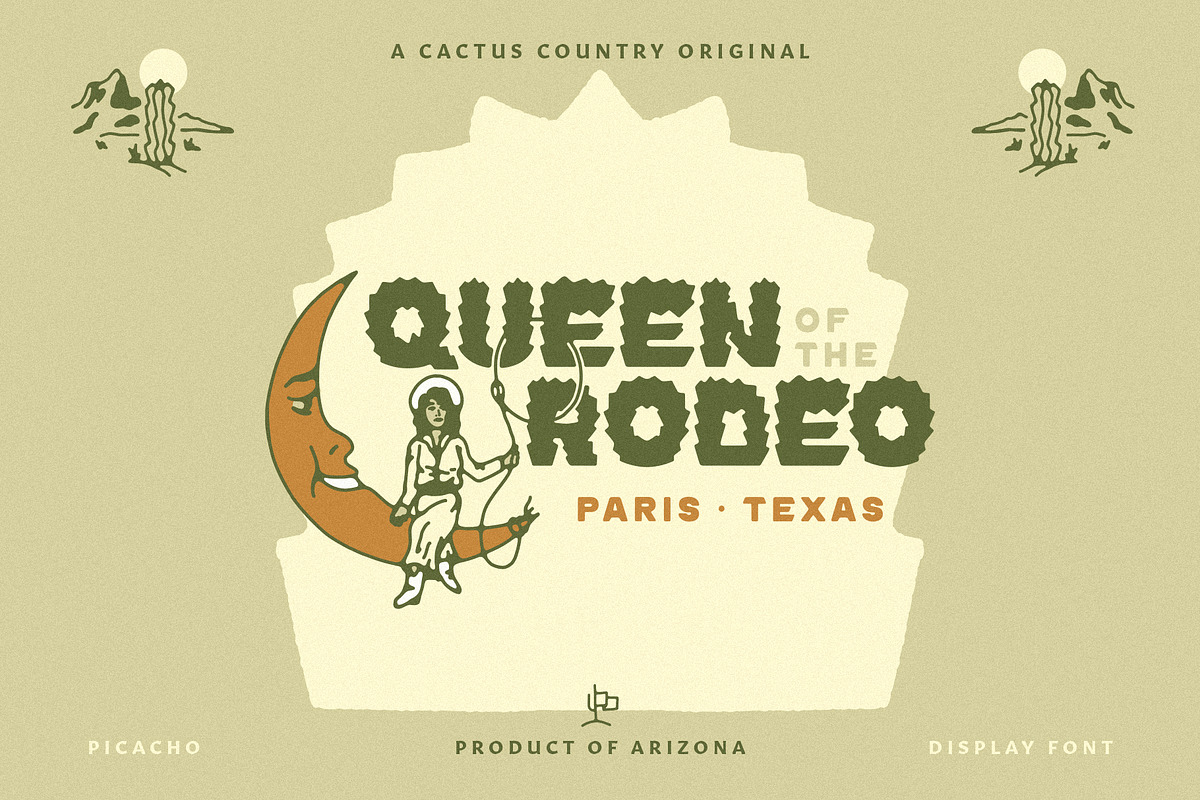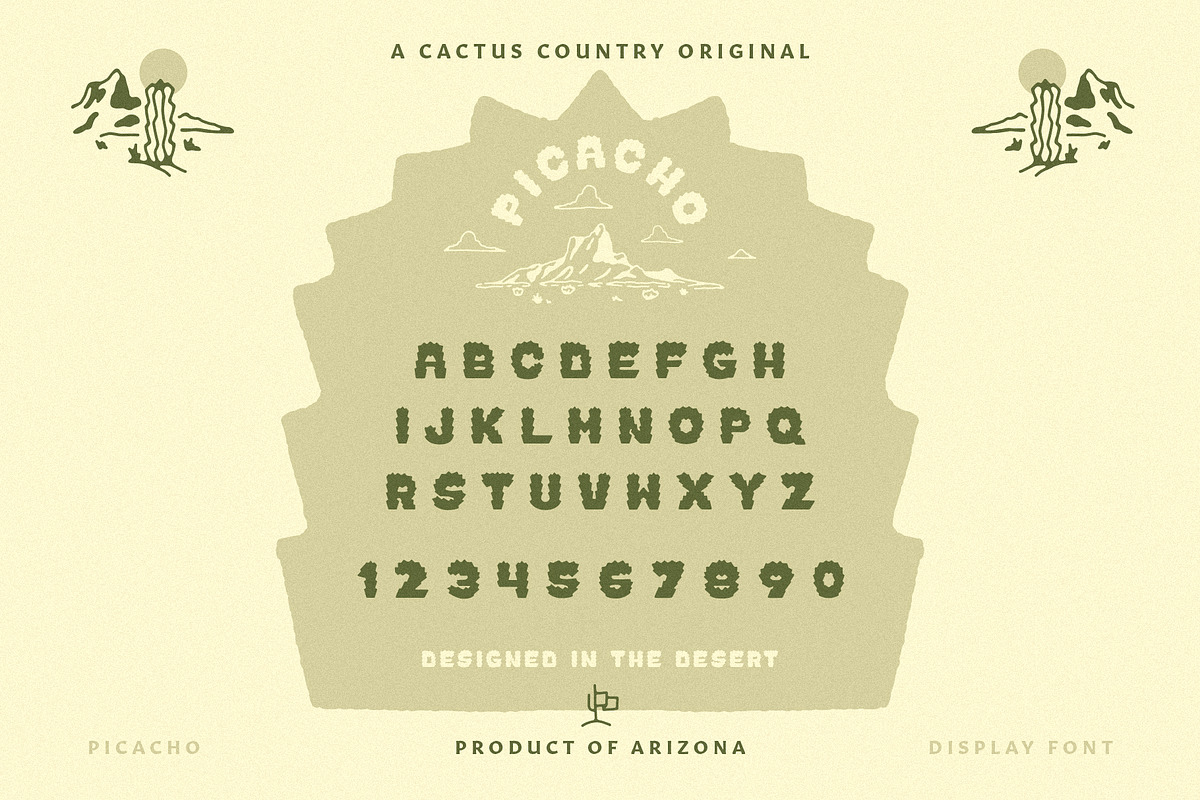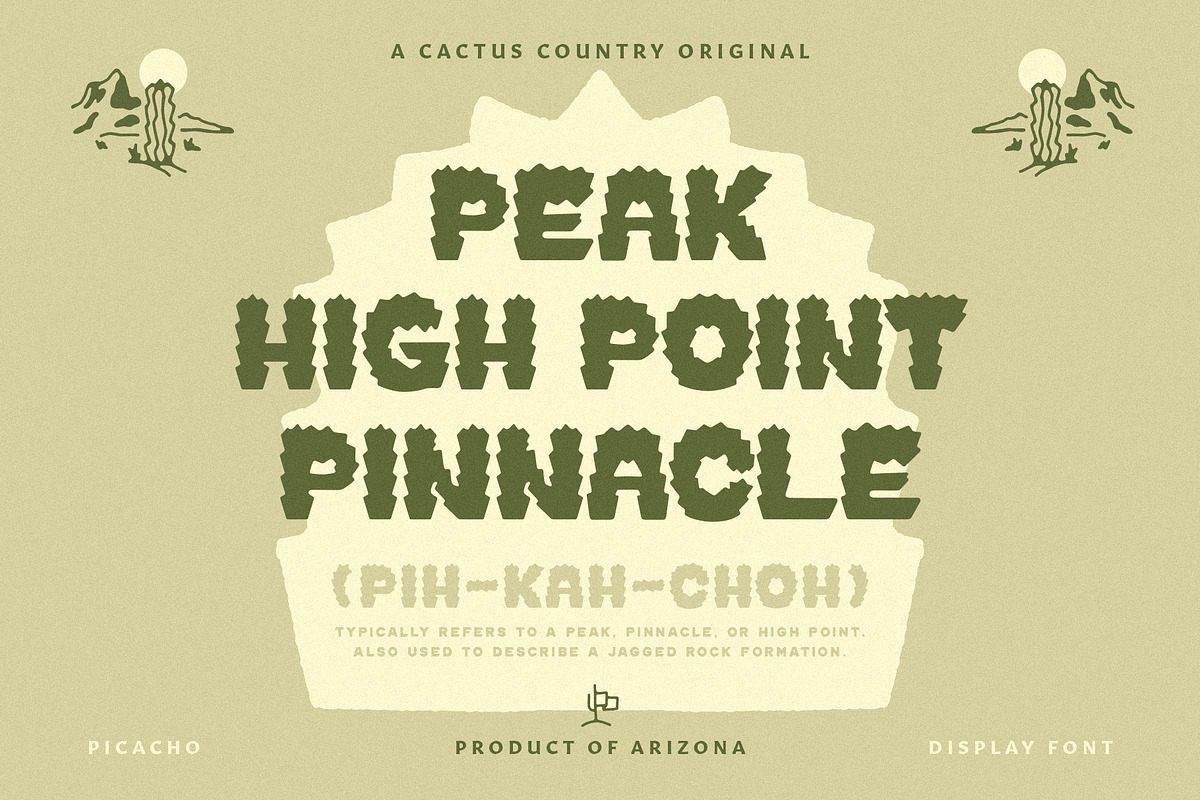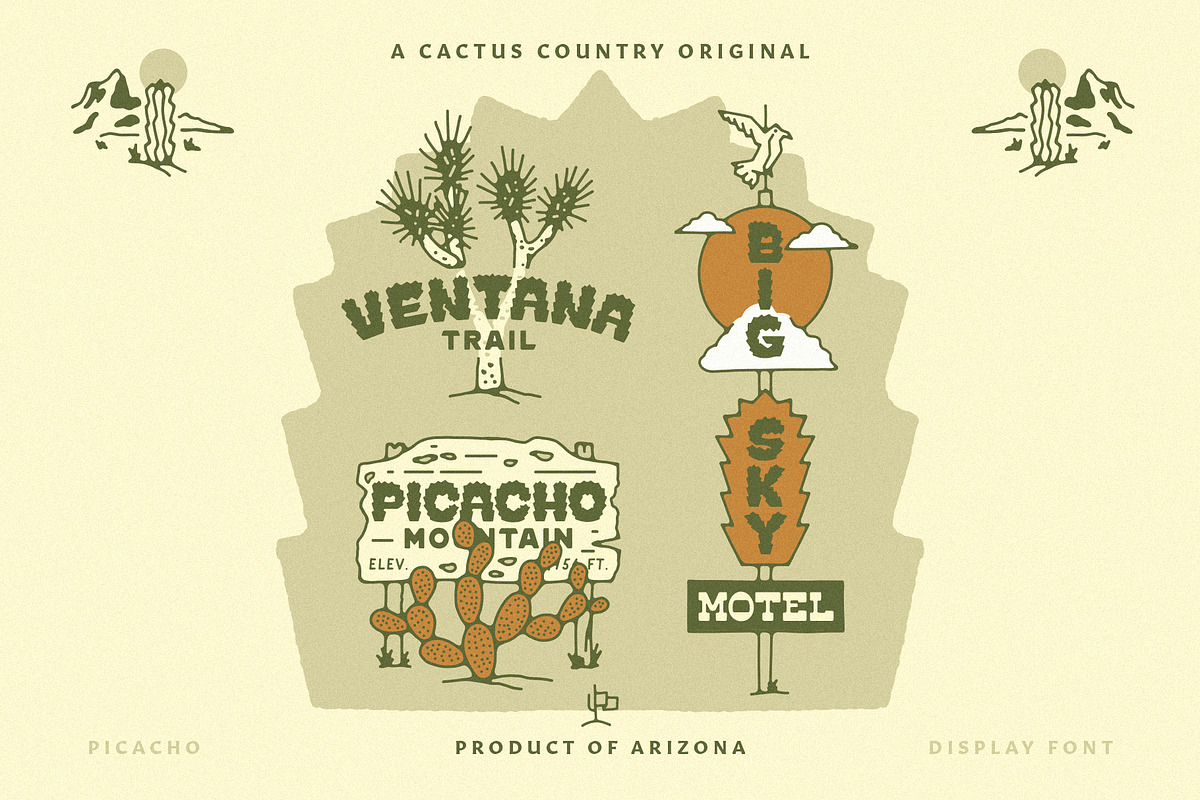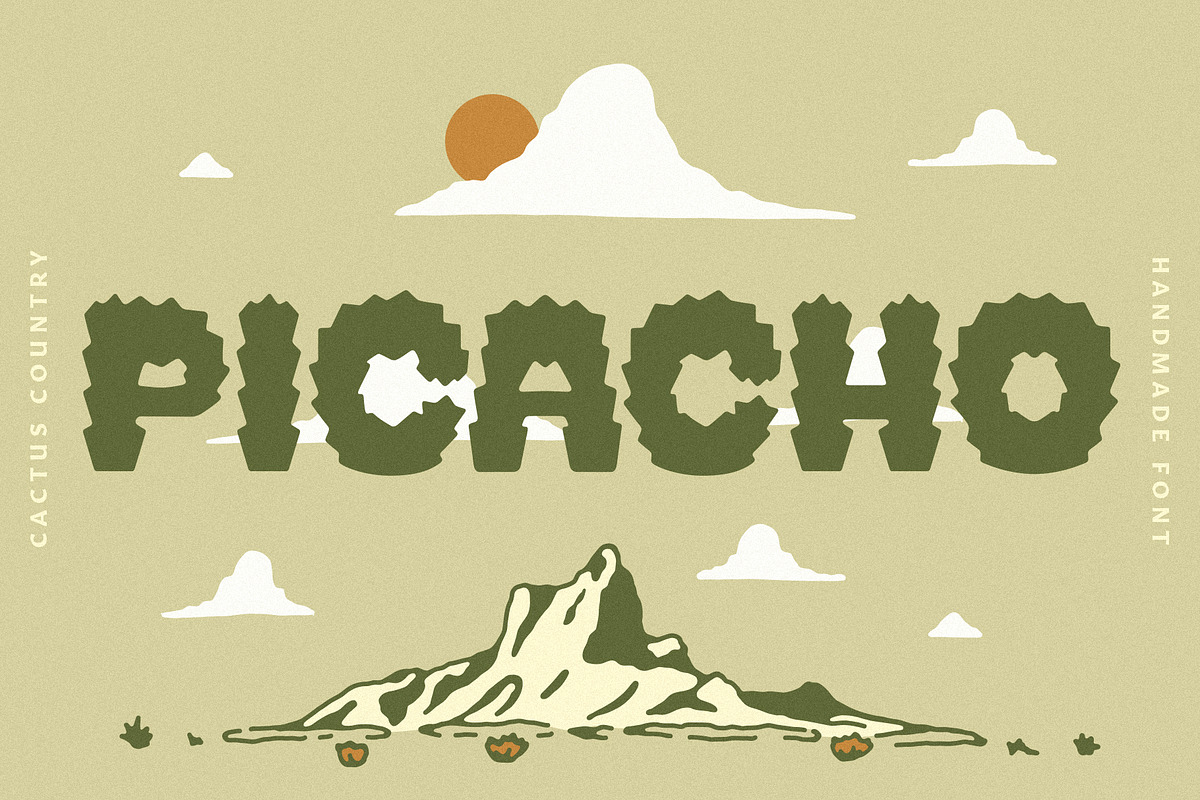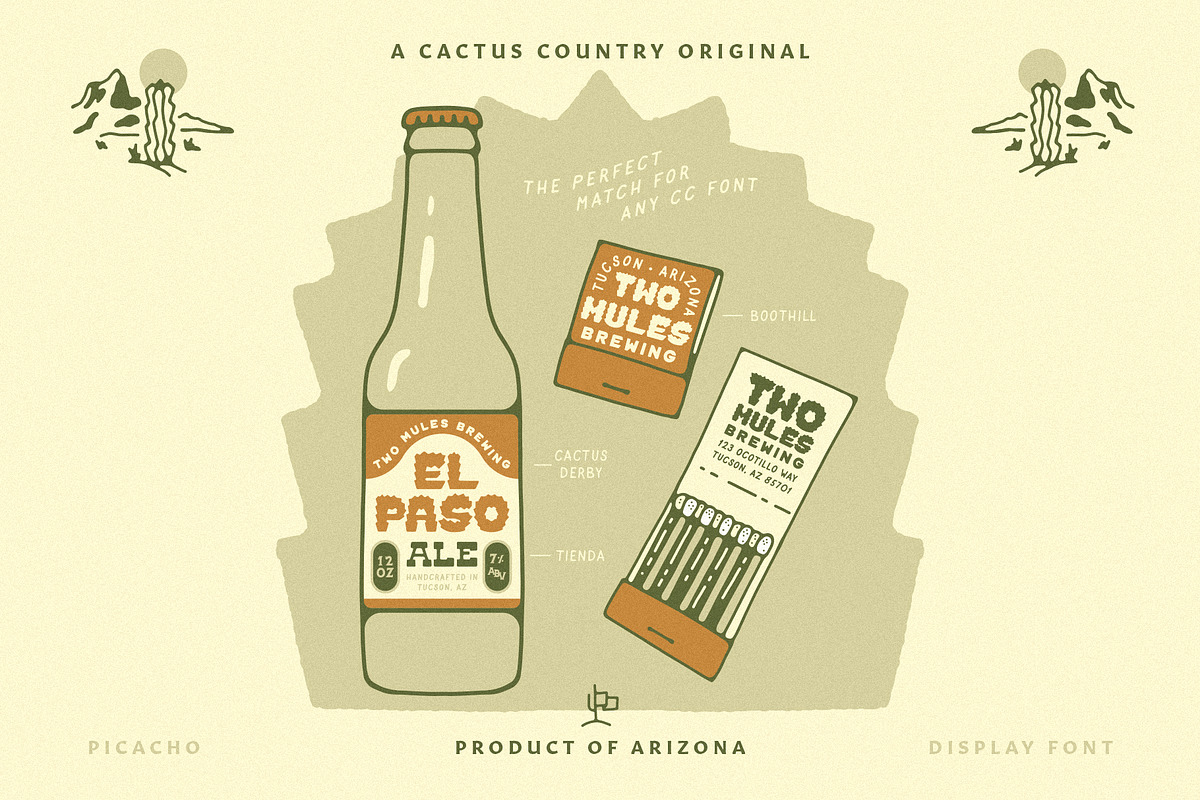
Picacho Display Font
Introducing Picacho (pih-kah-choh), the font inspired by the famous, harrowing mountain landmark just north of Tucson, casting a jagged shadow across the I-10 freeway. Spanish for “peaks,” this display font features cactus spine like points and corners of the carapari cactus, mimicking rugged and rocky formations with contrasting yet complimenting rounded corners.